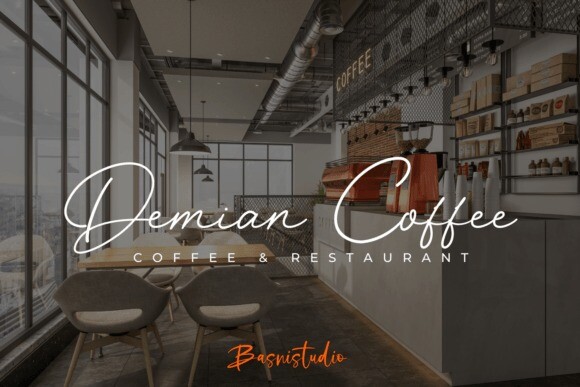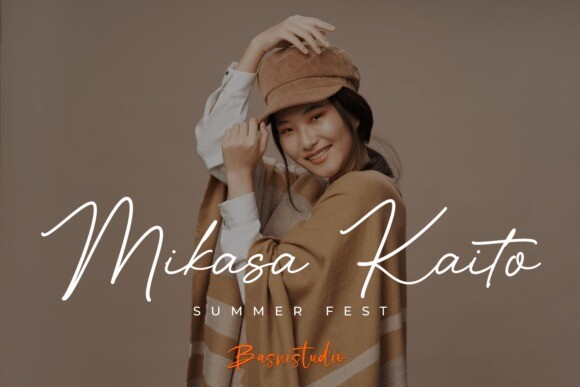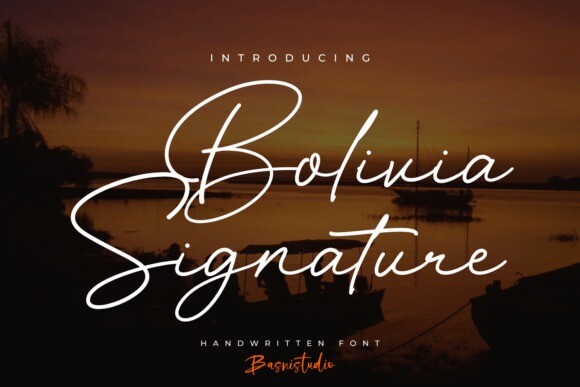
Bolivia Signature Font
Bolivia Signature Font is crafted with natural flow and precision, making it ideal for branding, websites, and editorial design. It includes all character letters, multilingual support, punctuation, and ligatures. Everything is easily accessible in software that supports OpenType features.